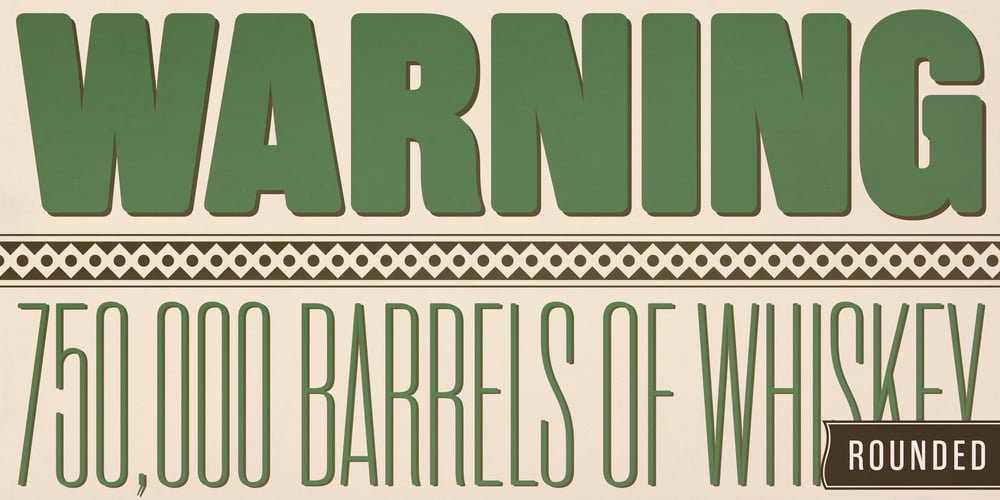
Rama Gothic Rounded
Rama Gothic Rounded font
Rama Gothic Rounded Font Family was designed by Ryoichi Tsunekawa and published by Dharma Type. Rama Gothic Rounded contains 18 styles and family package options. Rama Gothic Rounded is an antiqued sans serif designed inspired by 1800s-style wood type. All glyphs had been designed carefully to be retro-looking of the old time and to fill all with nostalgia. This condensed font family with 42 styles will be the best solution for posters, titles and anywhere you need impact. To complete your work perfectly, Gothic Extras family is ready for free. They include borders, ornaments and frames designed using vintage catalog of Hamilton in 1800’s as a model. Be sure to check out the slab serif style of this Rama series named Rama Slab.